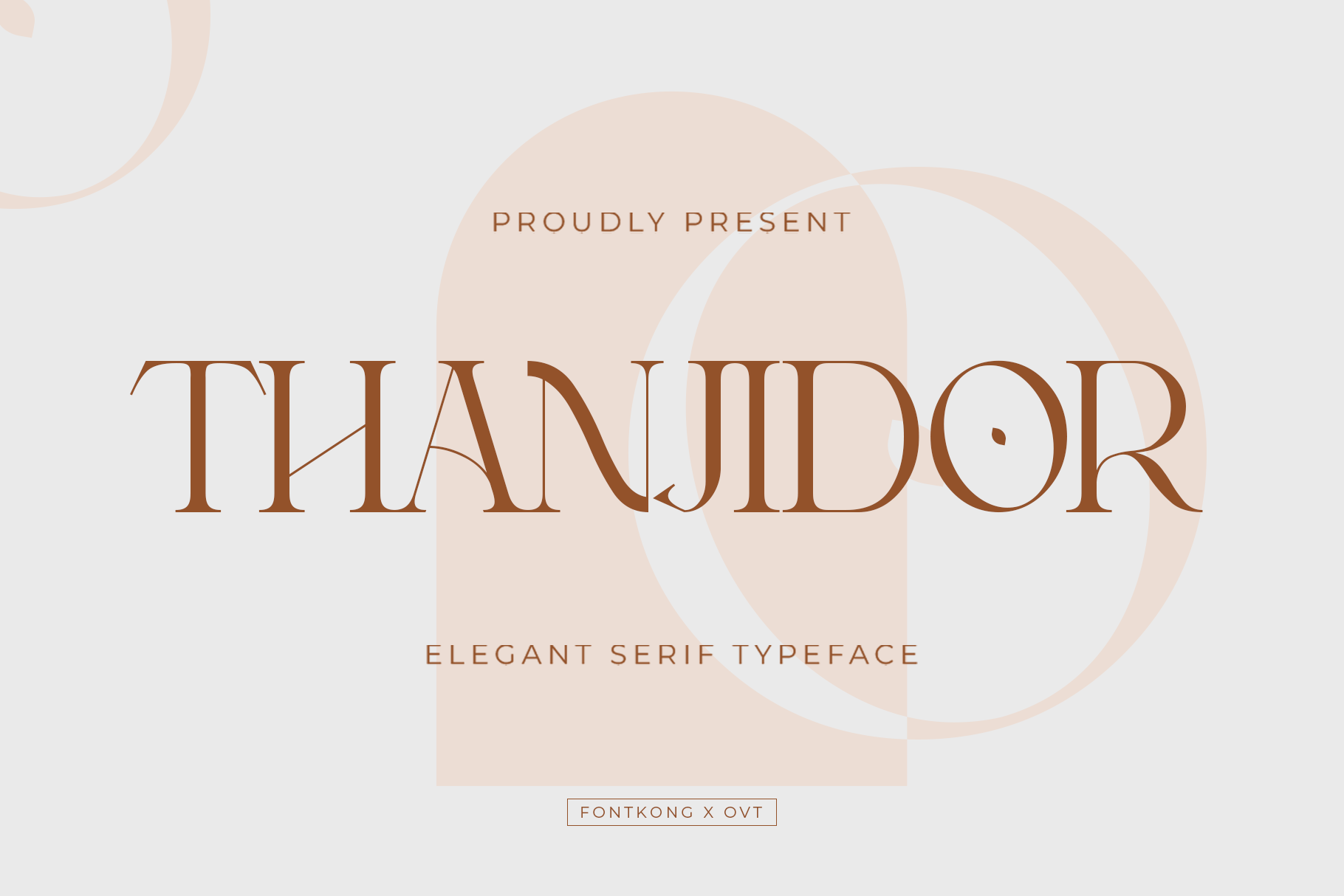
Thanjidor - Elegant Serif Typeface
"Thanjidor" is an elegant serif typeface designed to bring a touch of sophistication and timeless grace to your creative projects. Ideal for those who value classic beauty infused with modern refinement, Thanjidor is perfect for luxurious branding, detailed editorial content, and captivating advertising.
Featuring beautifully crafted serifs and a balanced structure, Thanjidor excels in readability and aesthetic appeal. Its delicate curves and precise detailing make it a standout choice for high-end publications, sophisticated product packaging, and elegant promotional materials. The typeface includes a comprehensive suite of weights, italics, numerals, punctuation, and extensive language support, making it highly versatile and suitable for a broad range of applications.
Whether you're designing for a luxury brand, setting the type for a boutique magazine, or creating compelling visuals for a cultural event, Thanjidor enhances your text with its refined elegance and distinctive charm.
Thanjidor is the ultimate elegant serif typeface for designers seeking to make a lasting impression with their work.